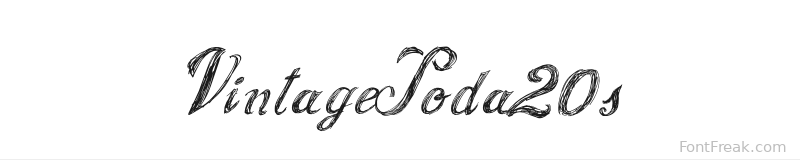
VintageSoda20s
VintageSoda20s is a captivating display font designed by Galdino Otten Fonts, offering a whimsical nod to the nostalgic aesthetics of the 1920s. This font falls into the decorative category, characterized by its unique handwritten style that evokes a sense of charm and playfulness. Its strokes exhibit a moderate weight with a slight contrast, creating an inviting visual appeal that draws the eye.
The VintageSoda20s font features elegantly curved letters and playful swirls, reflecting the artistic flair typical of the Roaring Twenties. The spacing between characters is well-balanced, ensuring readability while maintaining an artistic essence. This font showcases decorative elements that can enhance any design, making it a perfect choice for projects that require a vintage touch.
Best suited for a variety of creative applications, the VintageSoda20s font shines in wedding invitations, where its romantic flair adds a personal touch. It is also ideal for movie posters, particularly those aiming for a retro vibe, as it captures the essence of classic cinema. Restaurant menus benefit from its unique style, enticing diners with an inviting and memorable presentation. Additionally, small business branding can leverage this font to convey a distinct personality, setting themselves apart in a competitive market.
Target audiences for this font include graphic designers looking to elevate their projects, small business owners wanting to create a memorable brand identity, and content creators aiming for an authentic vintage feel in their work. The VintageSoda20s font free download makes this striking typeface accessible to anyone looking to incorporate a touch of nostalgia into their designs.
What truly sets the VintageSoda20s font apart is its ability to blend vintage charm with modern versatility, making it a delightful addition to any designer's toolkit. Its distinctive style not only captures attention but also tells a story, inviting viewers to engage with the creativity behind each project.